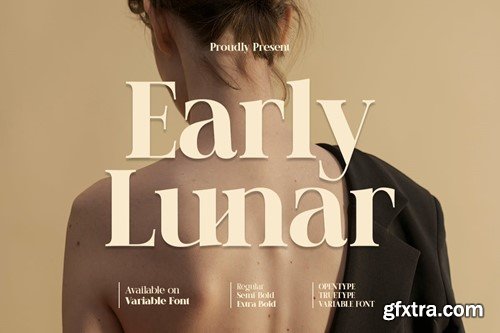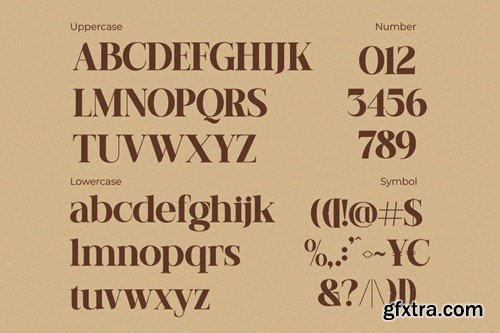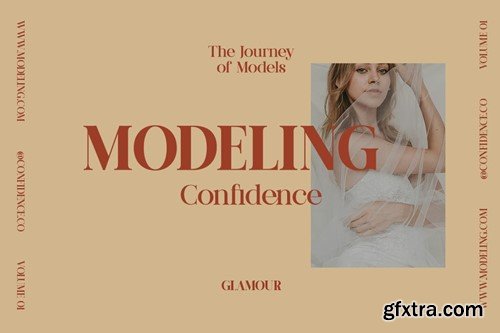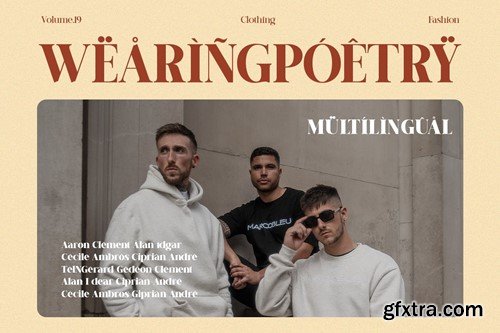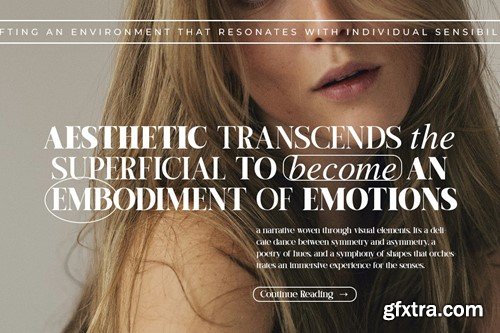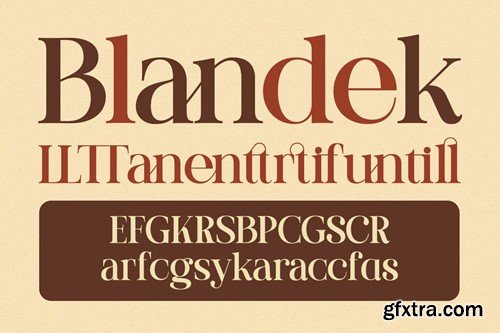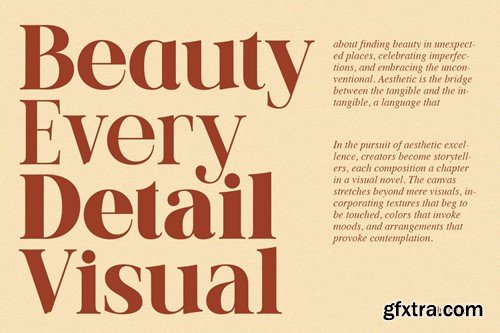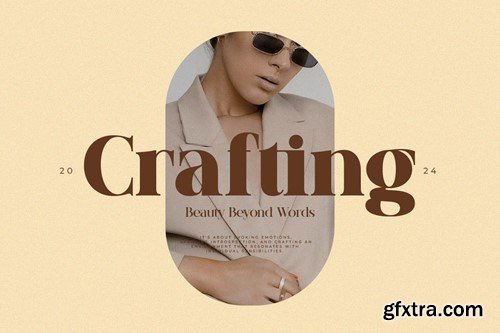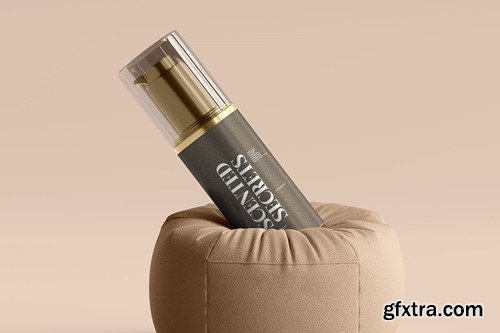
早期 lunar - 显示衬线字体 Q6DXV3X
Early lunar elegant display serif font can serve as a powerful attraction for customers. Its simple yet refined design imparts a professional and understated impression. The font is easy to read while maintaining a touch of sophistication, making it a versatile choice for various marketing purposes. Whether used in headings, subheadings, or main text, the uniqueness of this font lies in its ability to convey a sense of class and reliability. The smooth and balanced letter strokes create a visually pleasing appearance, enhancing the overall appeal of the brand. This font is a simple yet effective design element that can leave a positive impression on customers and reinforce the brand identity effectively. Early Lunar Features: We highly recommend using a program that supports OpenType features and Glyphs panels such as Adobe Illustrator, Adobe Photoshop CC, Adobe Indesign, or CorelDraw, so you can see and access all Glyph variations. While using this product, if you encounter any problem or spot something we may have missed, please don't hesitate to drop us a message. We'd love to hear your feedbacks in order to further fine-tune our products. Stay creative and have a wonderful day.